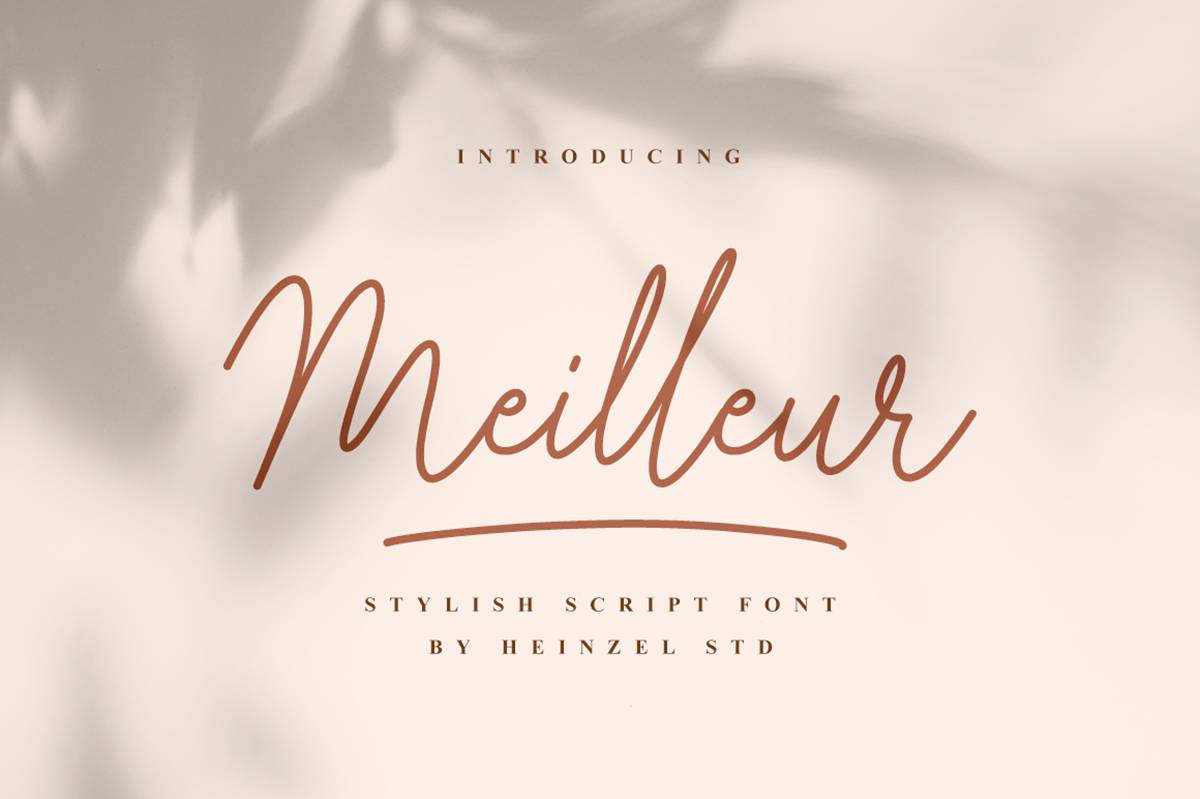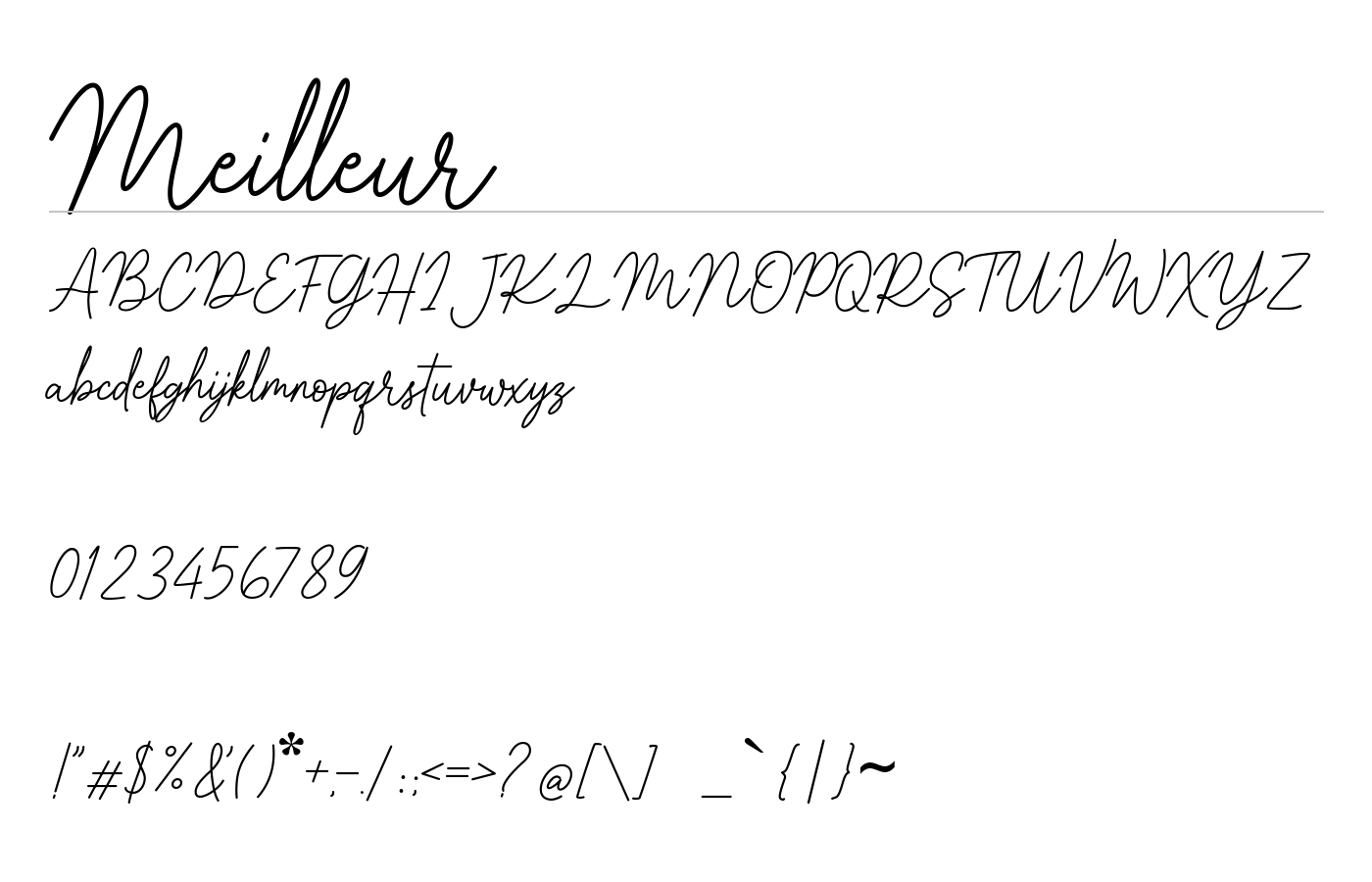
Meilleur is a delicate, handwritten script font featuring slender, flowing letterforms that convey elegance and a personal touch. Its light weight and graceful strokes make it perfect for invitations, branding, and any design that requires a refined, stylish appearance with a modern yet approachable feel. This font works well in contexts where a subtle, sophisticated charm is desired without overwhelming the overall design.
Meilleur Font
About Meilleur Font
| Font family | Meilleur Font |
| Release date | 2020-10-22 |
| Designer | Nofi Sofyan Hadi |